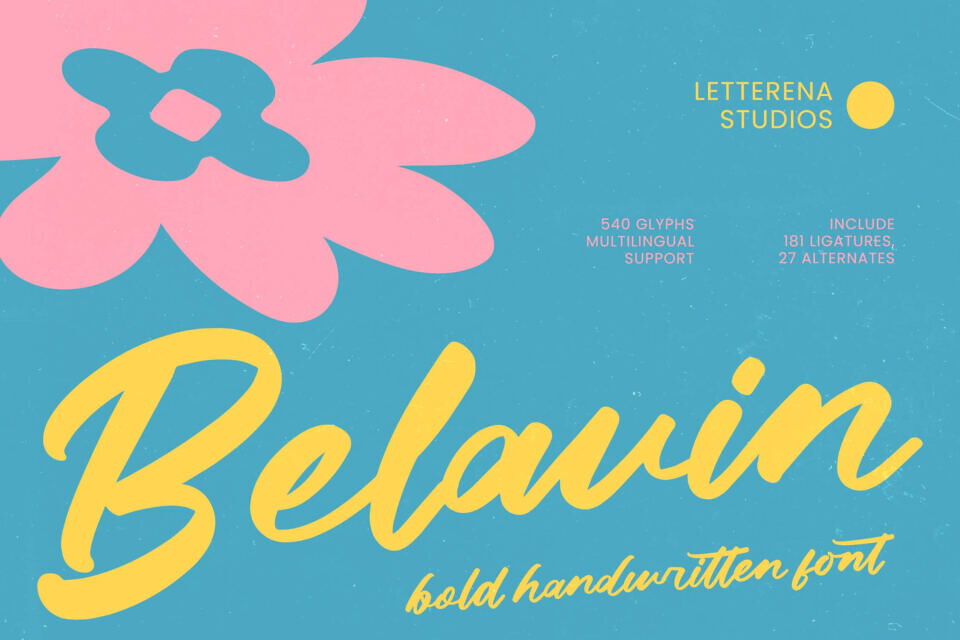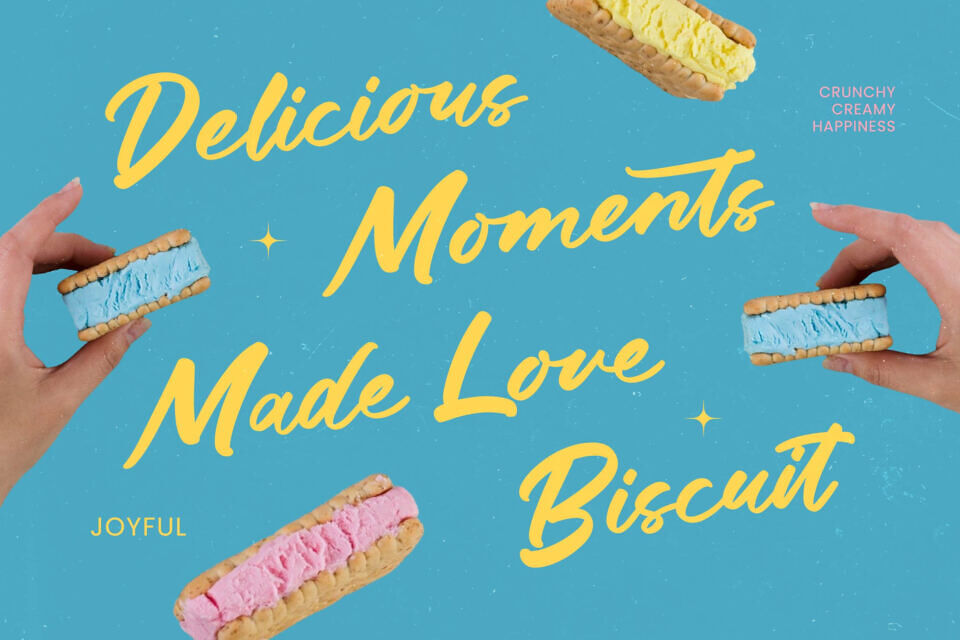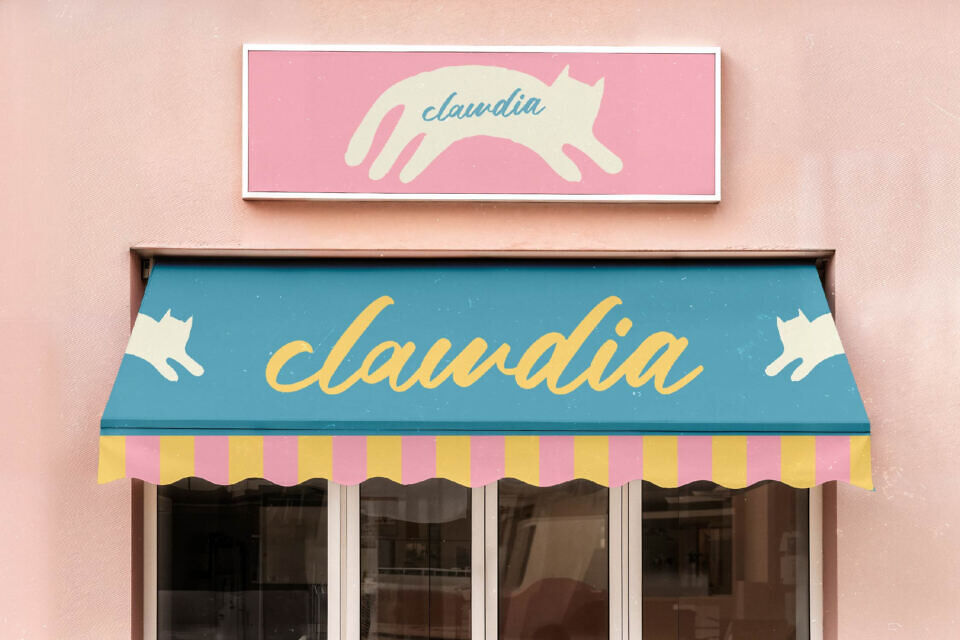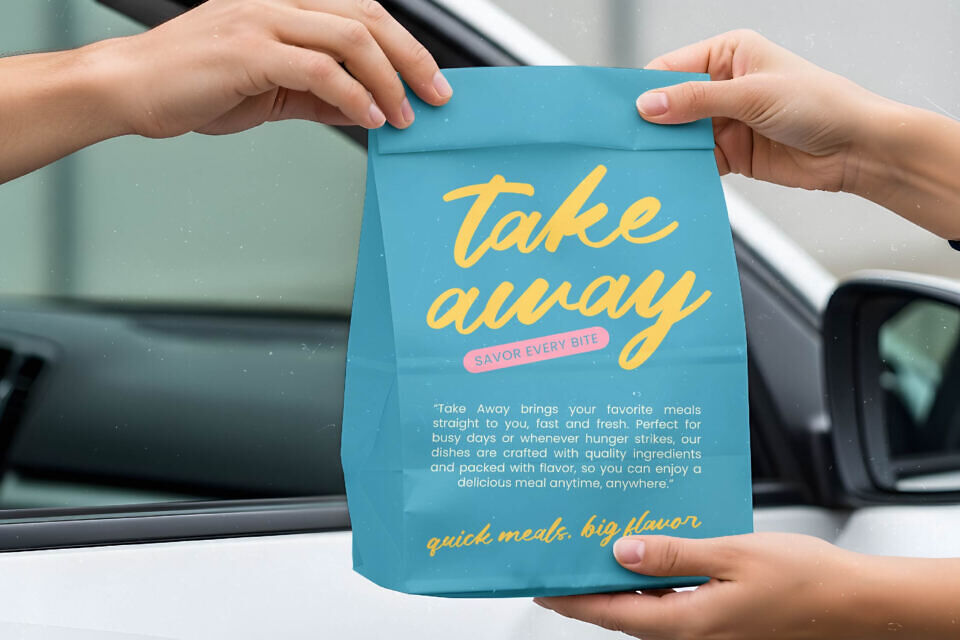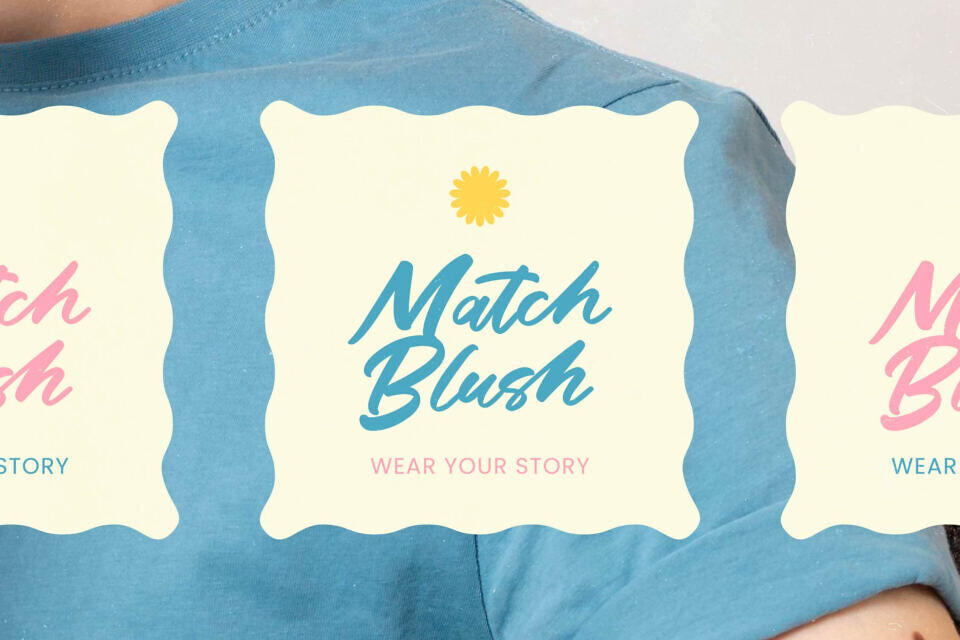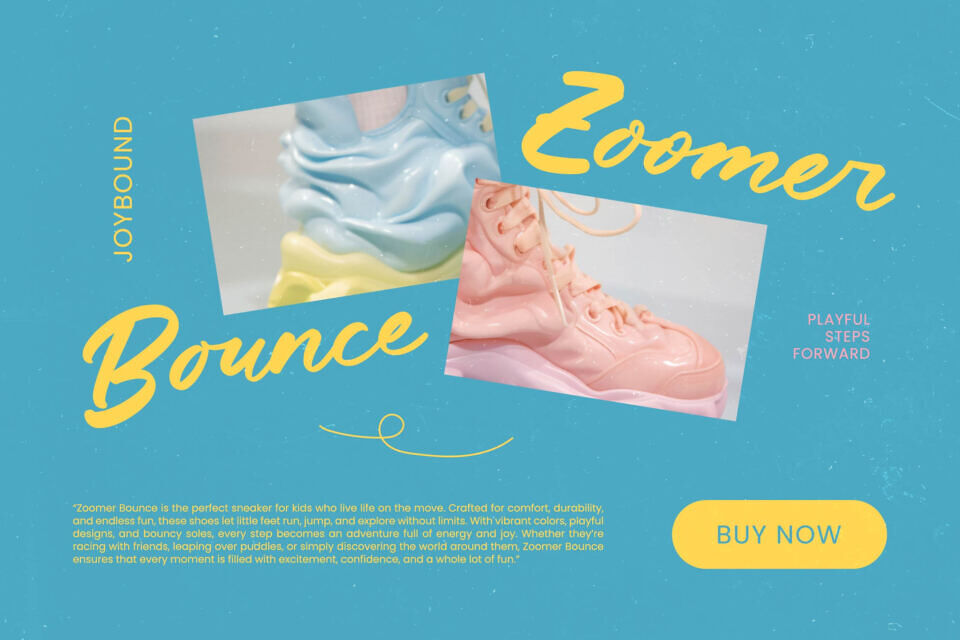
Belavin Font
Belavin is a masterclass in modern calligraphy, offering a bold, expressive aesthetic that demands immediate attention. Its thick, fluid strokes and organic curves convey a sense of handcrafted authenticity, making it an essential tool for designers seeking to inject genuine personality and warmth into their digital and print projects.
Transform ordinary designs into high-impact visual statements with the perfect typographic companion. Belavin is perfectly suited for luxury branding, high-end packaging, and dynamic editorial design. It is the ideal choice for impactful social media graphics, bespoke logo design, and lifestyle advertising where a personal and human touch is paramount.